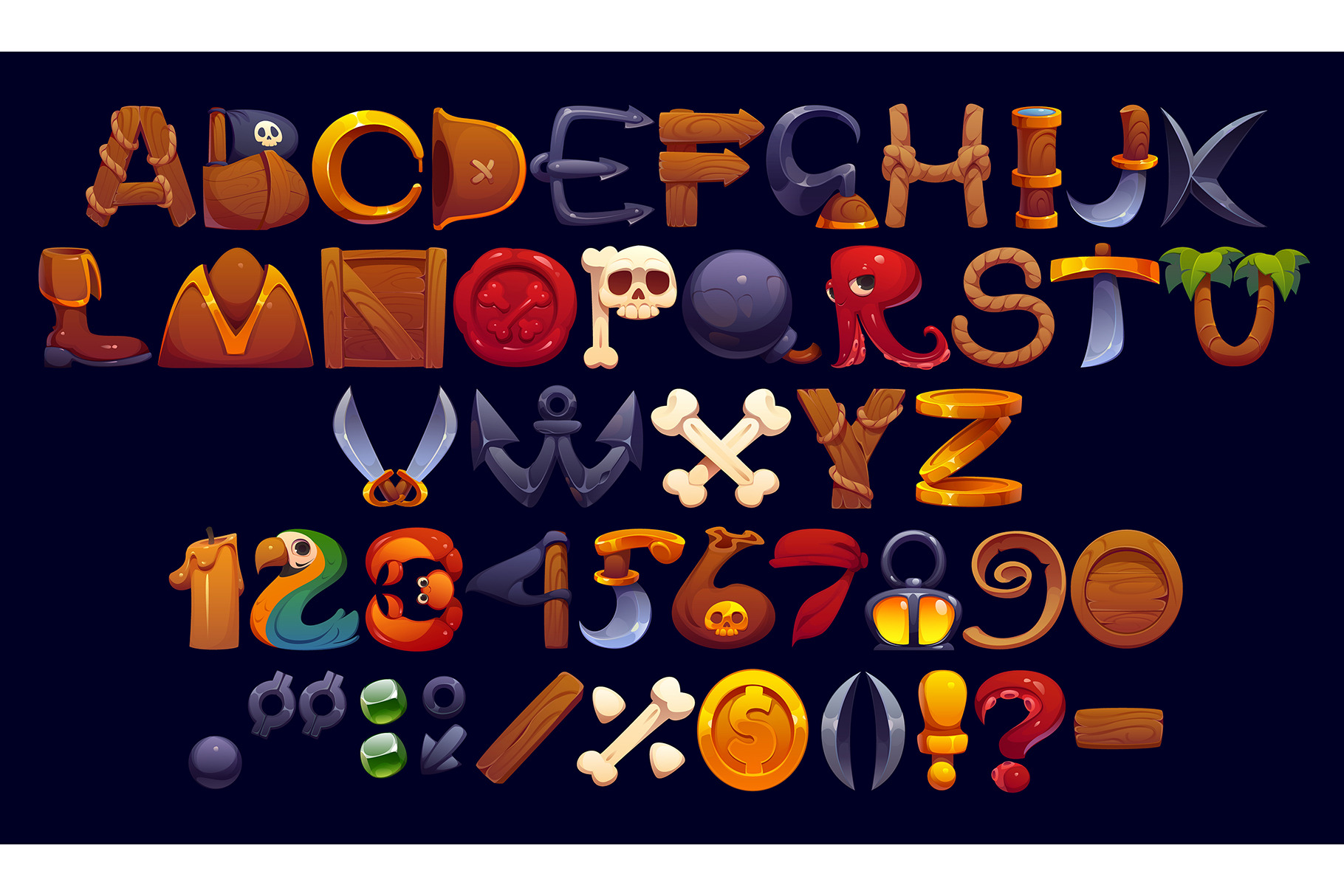
Cartoon Caribbean pirates font
Cartoon Caribbean pirates font, corsair typeface letters. Vector English alphabet and number set with ropes, cannons, swords, and gold coins. Nautical abc for kid games, treasure maps or adventures